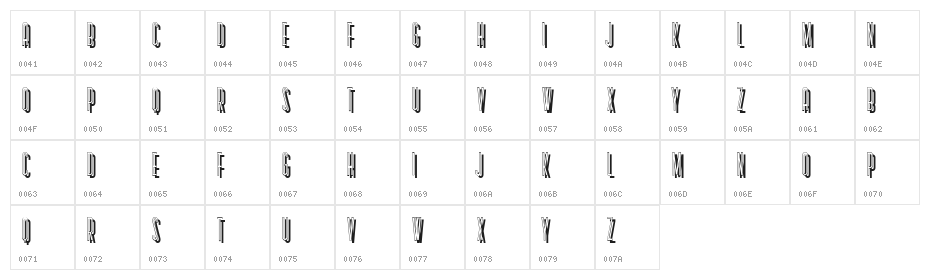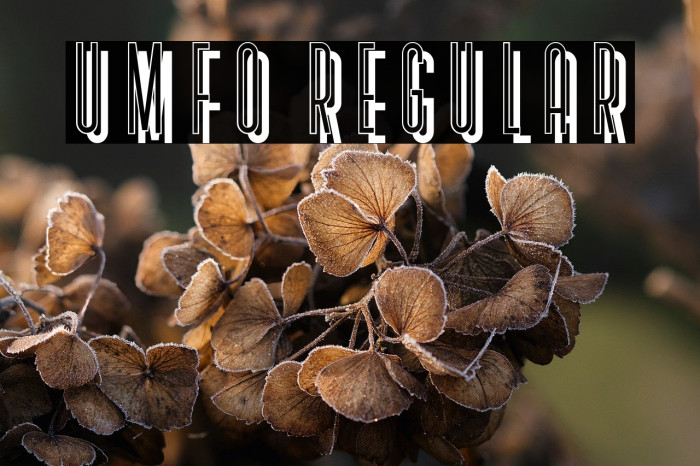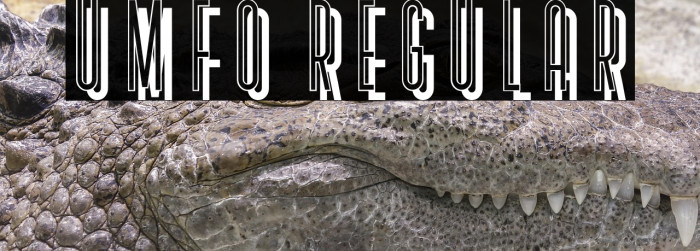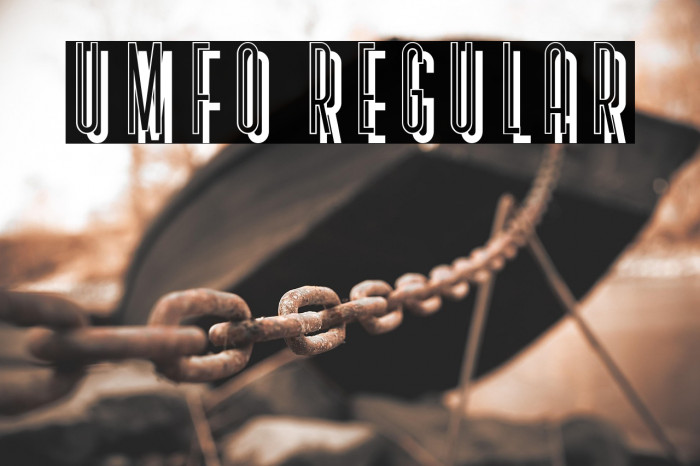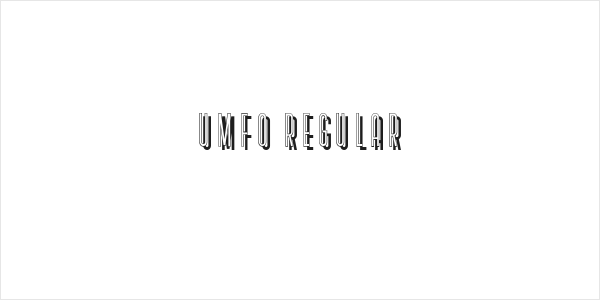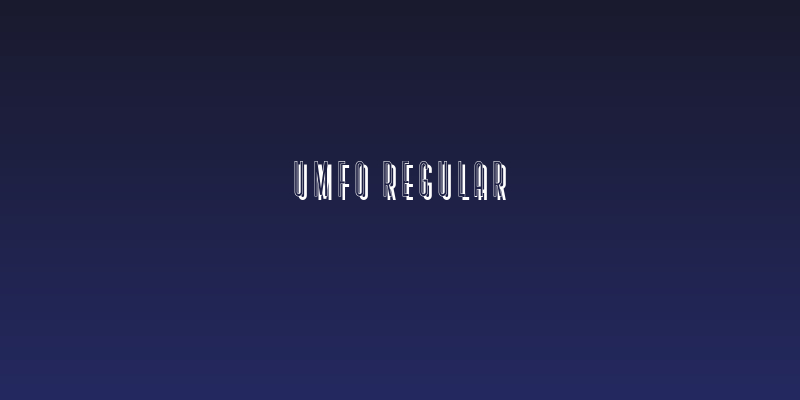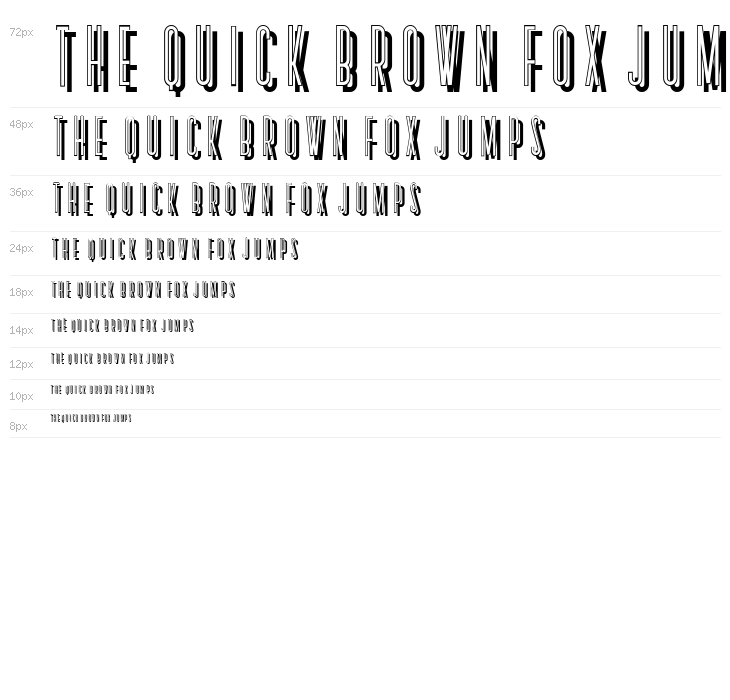
Umfo Regular Font
Umfo Regular Description
This font features a bold and striking design with a three-dimensional effect, achieved through the use of shadowing and layering. The characters are uppercase and have a strong vertical emphasis, with clean lines and sharp angles that create a sense of depth and movement. The font's unique style makes it highly suitable for attention-grabbing headlines and titles. Its geometric structure and modern aesthetic lend it a contemporary feel, while the shadow effect adds a touch of retro flair. The spacing between characters is consistent, ensuring readability despite the complex design. This font is ideal for projects that require a bold statement or a dynamic visual impact.
| Proposed Projects | Ideal for headlines, posters, branding, and any design that requires a bold, eye-catching typeface. |